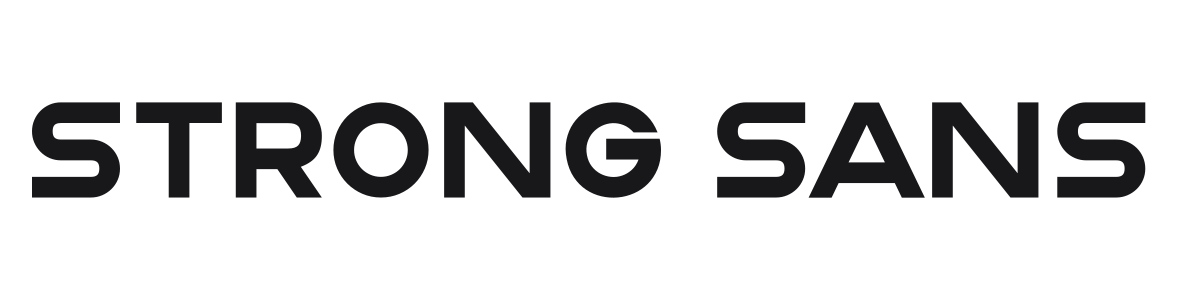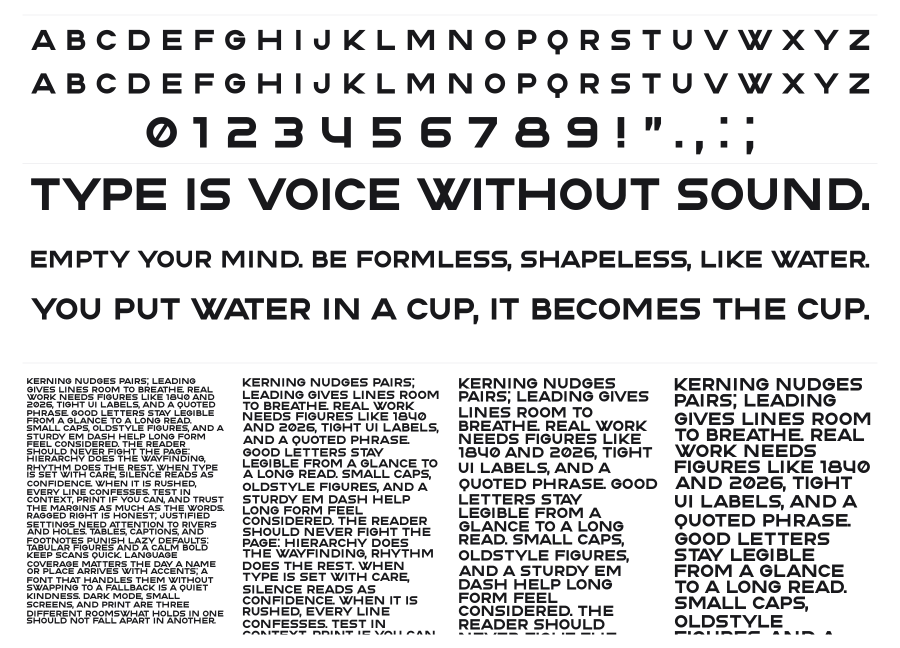
Strong Sans
Strong Sans is a bold geometric sans-serif with wide, confident proportions and clean monoweight strokes. Slightly rounded terminals give it just enough approachability to keep it from feeling harsh. It works well wherever weight and presence matter: headlines, logos, sports branding, packaging.